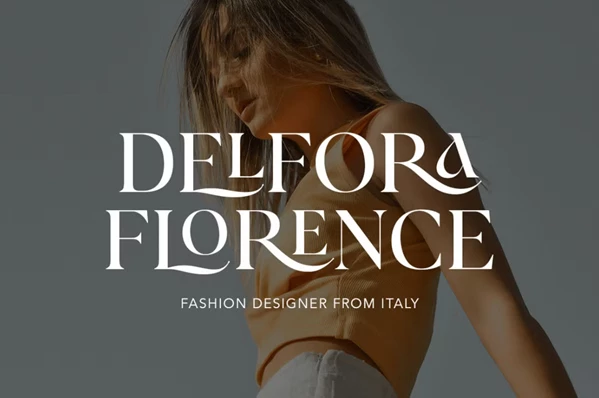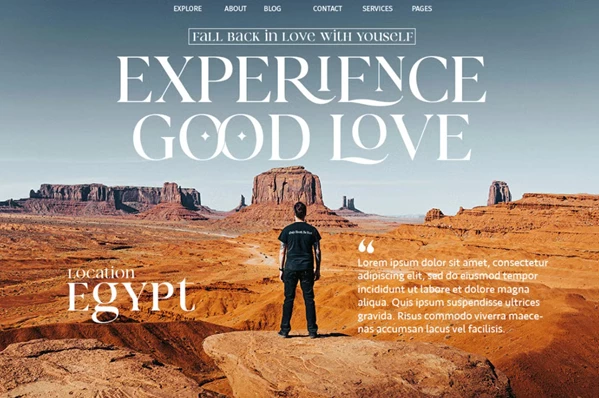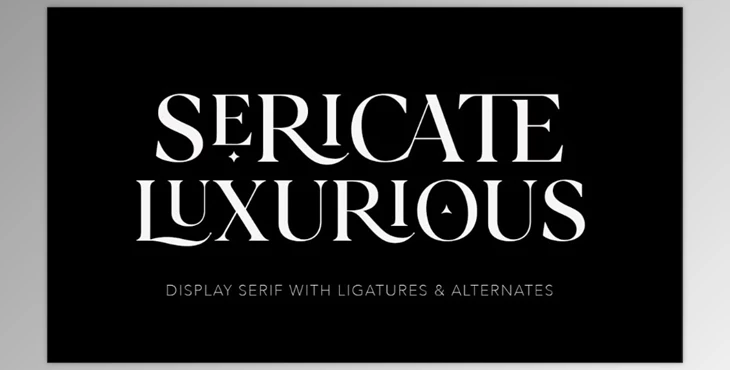
Sericate - Ligature Font:
A new sophisticated and elegant serif font with great typographic attention where each letter comes with a delicate and strong character. Sericate's unique feature is the ligatures that add an artistic vibe, making your text more alive, unique, and refined.
A versatile font for high-end design solutions that require a luxurious and professional look. Premium branding & logos, luxury packaging, editorial and fashion magazines, chic titles for wedding invitations or classic-modern style headlines will require this level of sophistication.
The combination of a timeless old serif and modern styles creates a perfect match for a visual identity that stands the test of time with elegance and modern beauty.